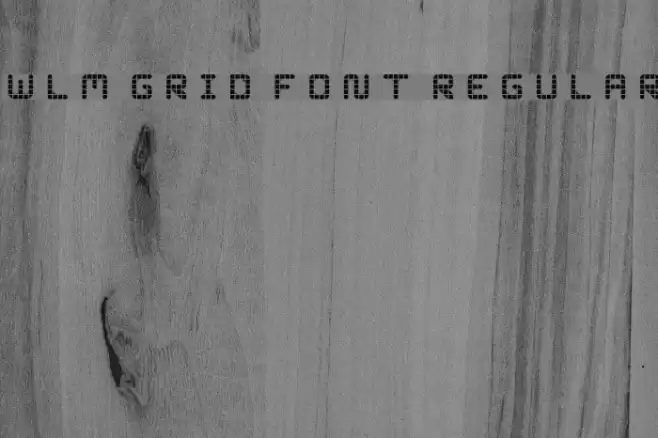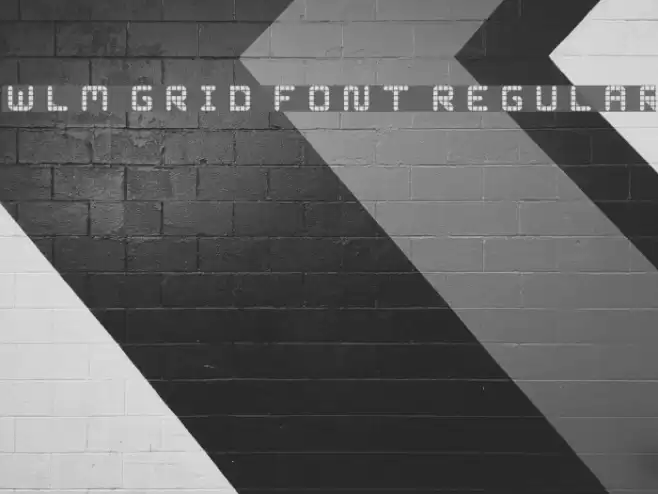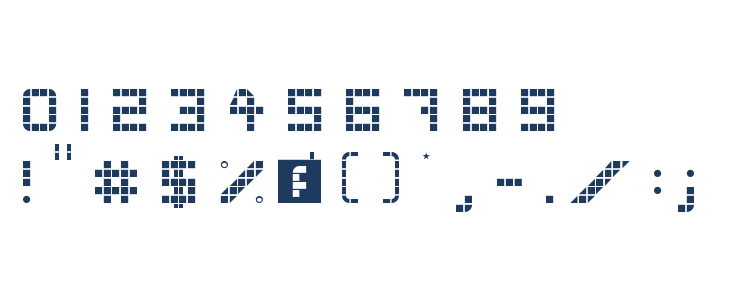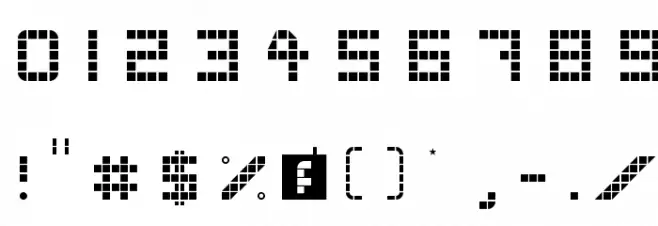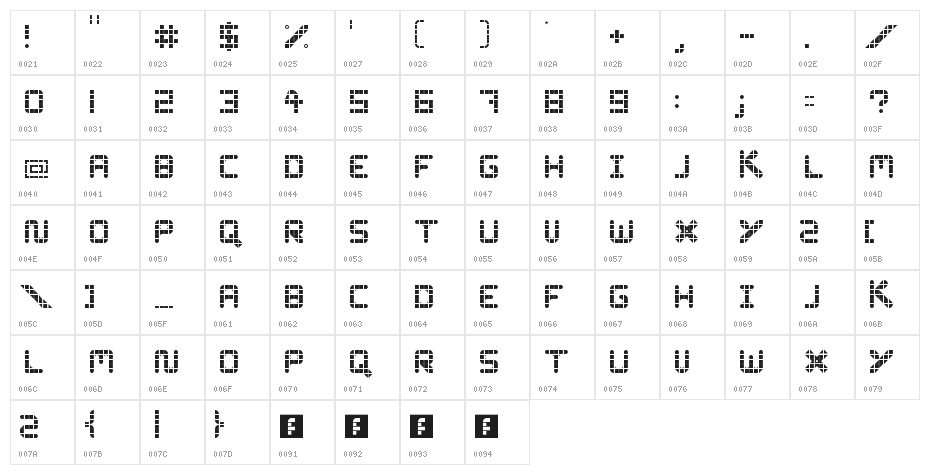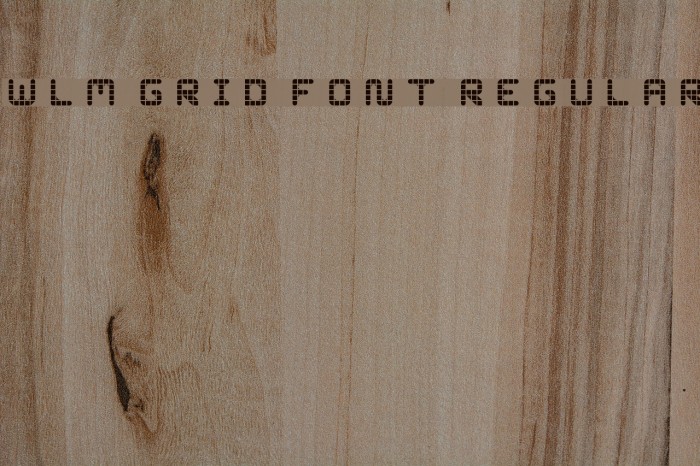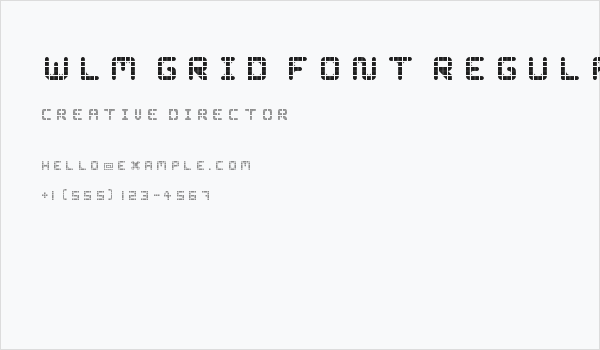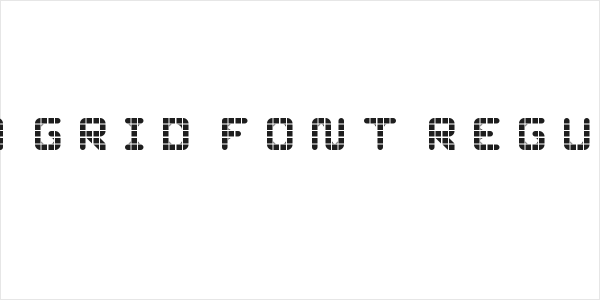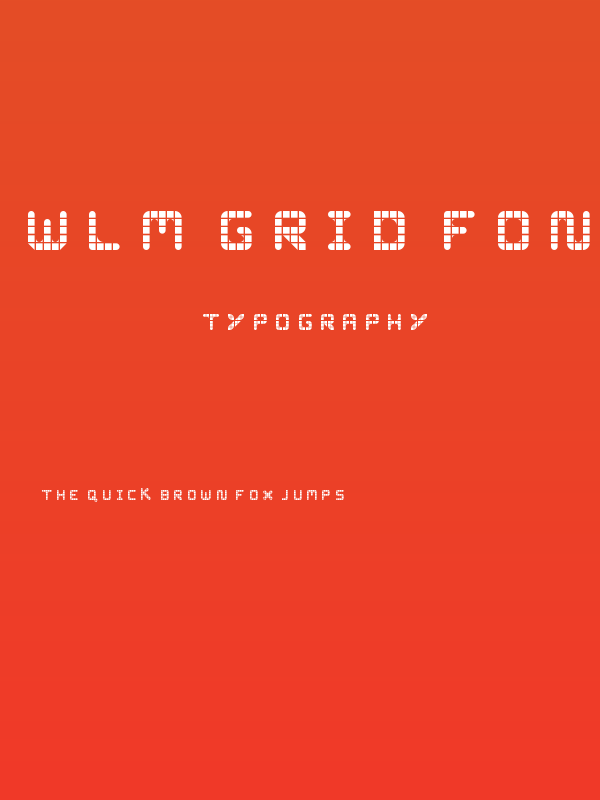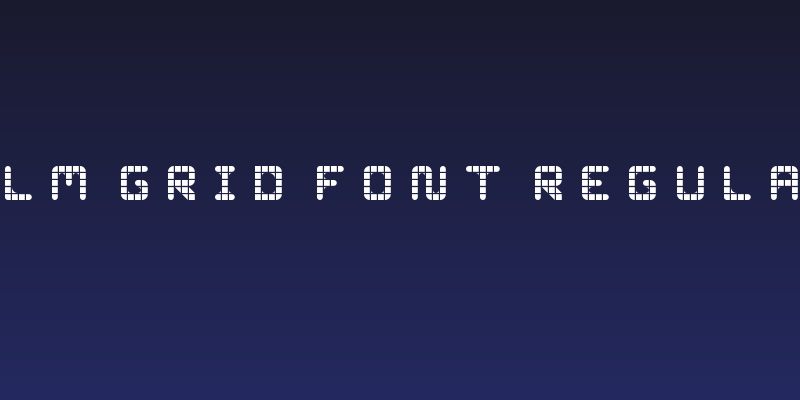
WLM Grid Font Regular Font
WLM Grid Font Regular Description
This font features a unique grid-based design, where each character is constructed from a series of small squares. The geometric style gives it a digital, modern appearance, reminiscent of pixel art or early digital displays. The uniformity of the grid structure ensures consistency across all characters, creating a cohesive and visually striking typeface. The uppercase and lowercase letters maintain the same grid pattern, offering a sense of balance and harmony. Numbers and special characters follow the same design principles, ensuring versatility and adaptability in various contexts.
A grid-based, pixel-style font with a modern digital aesthetic from Uncategorized fonts.
- Proposed Projects: Ideal for digital art projects, retro-themed designs, tech-related branding, and any creative work that requires a modern, digital look.
- Use Case: Logos, Headlines, Digital Art